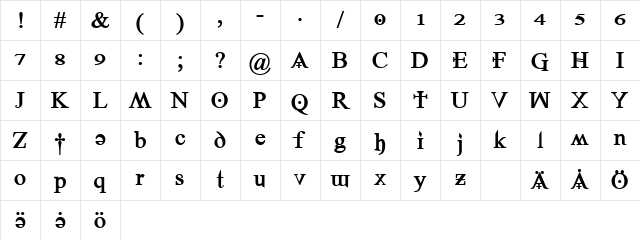
Denial2RegularBold Regular
Design Context for Denial2RegularBold
Denial2RegularBold is a composed and adaptable typeface that performs quietly and consistently across a wide range of design contexts. Its bold stroke weight gives it real presence on the page.